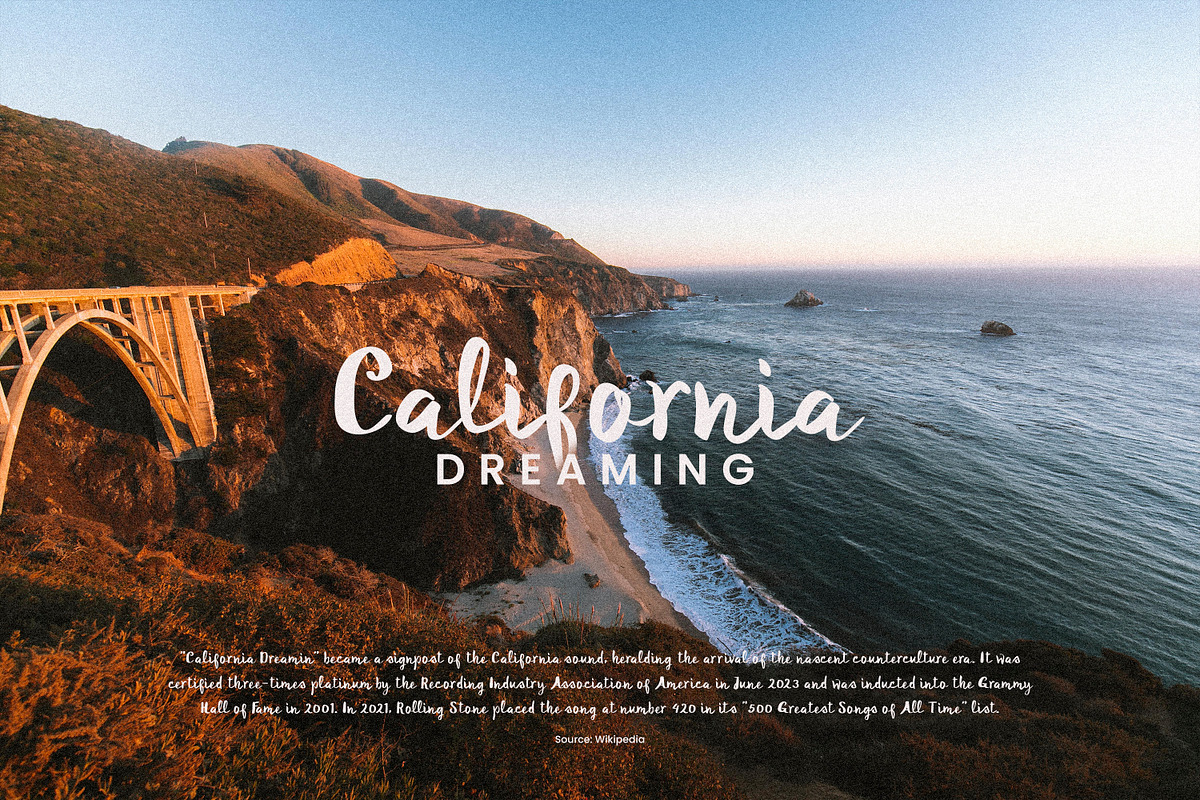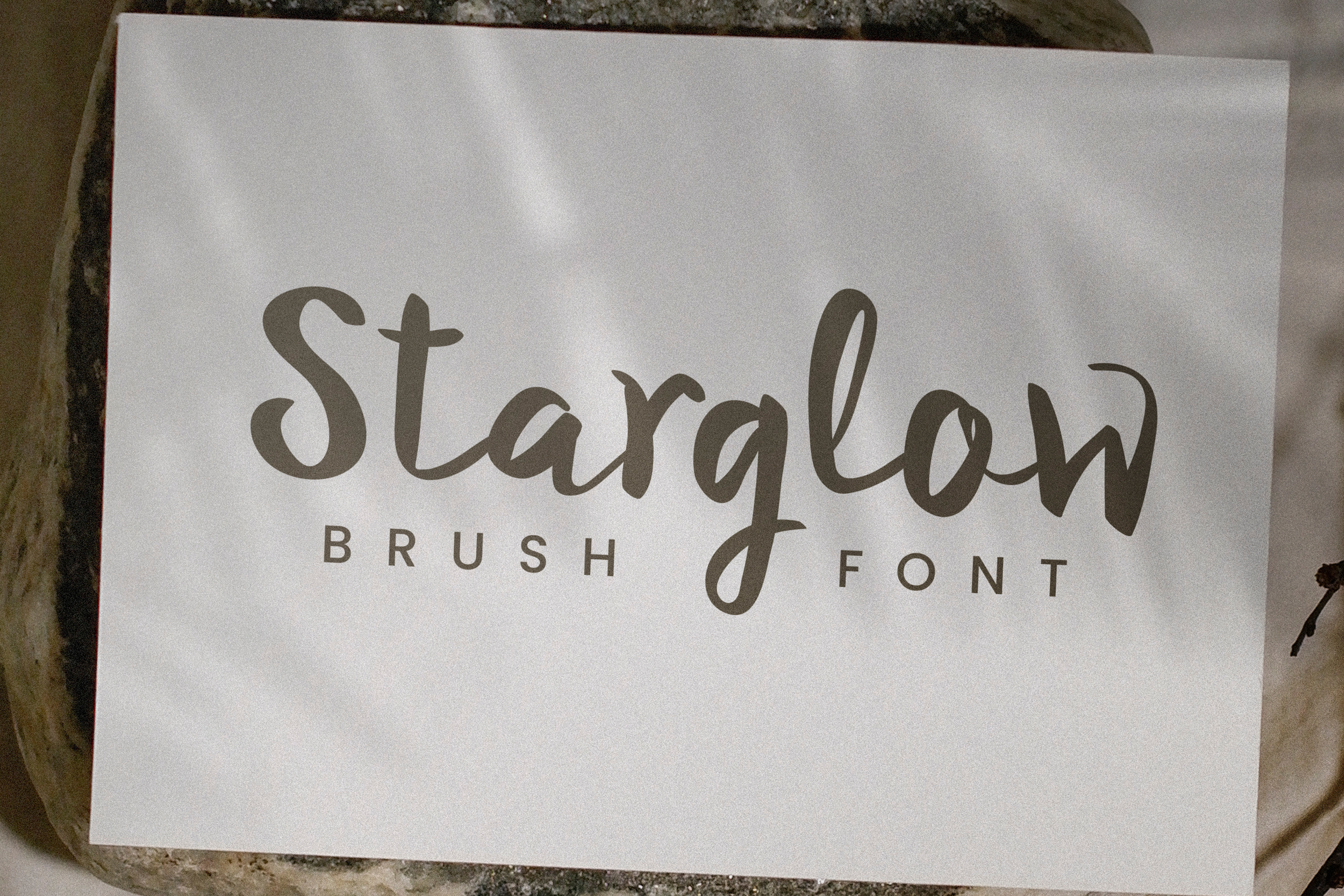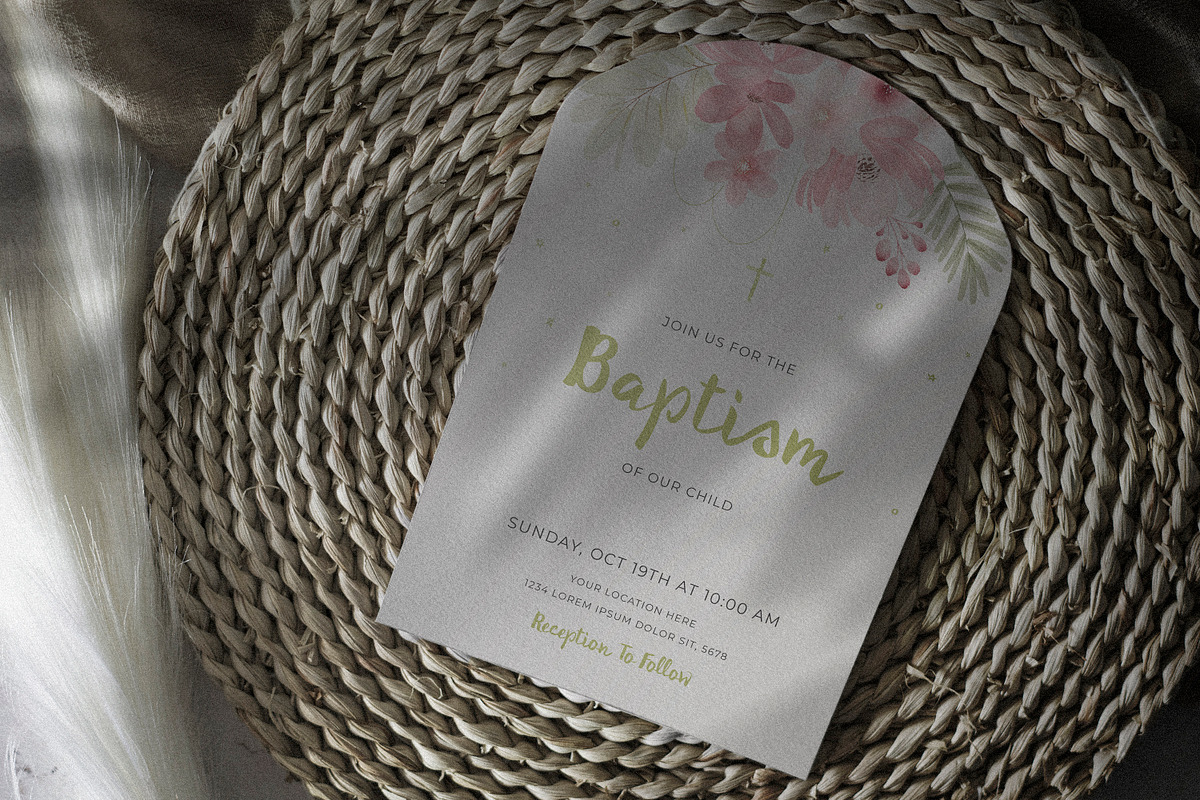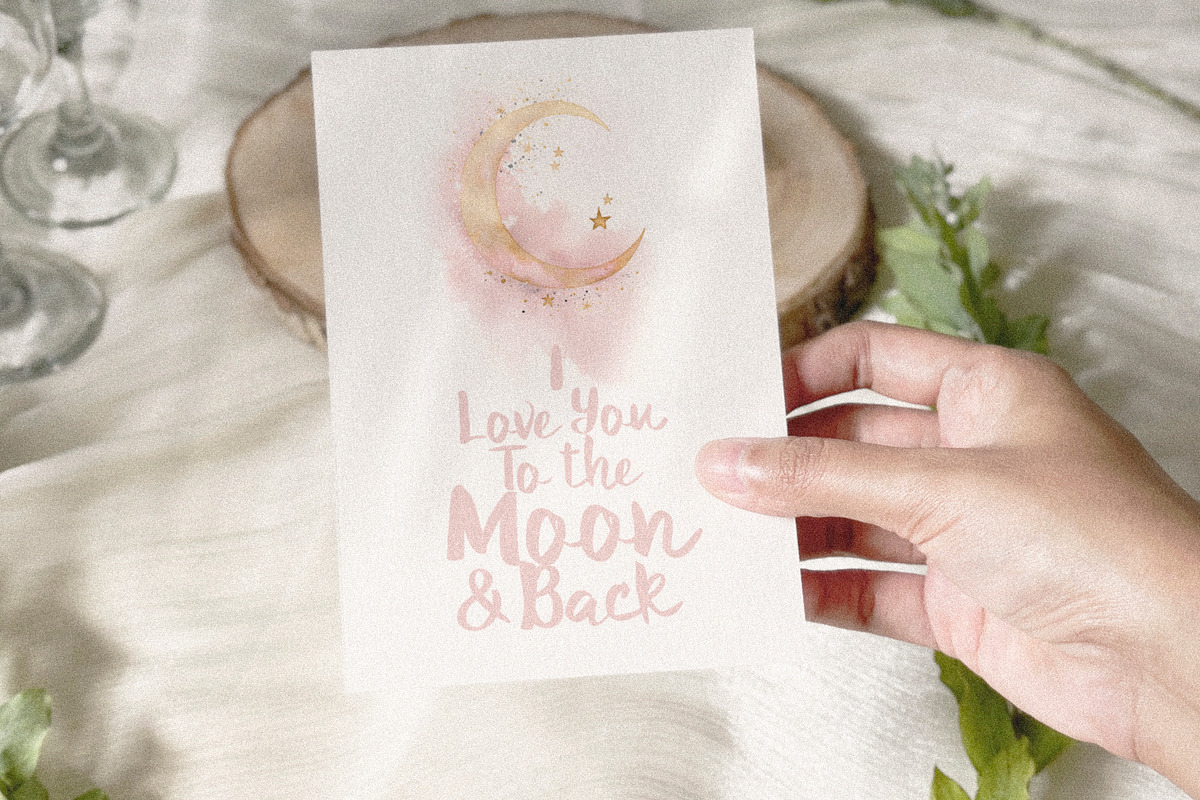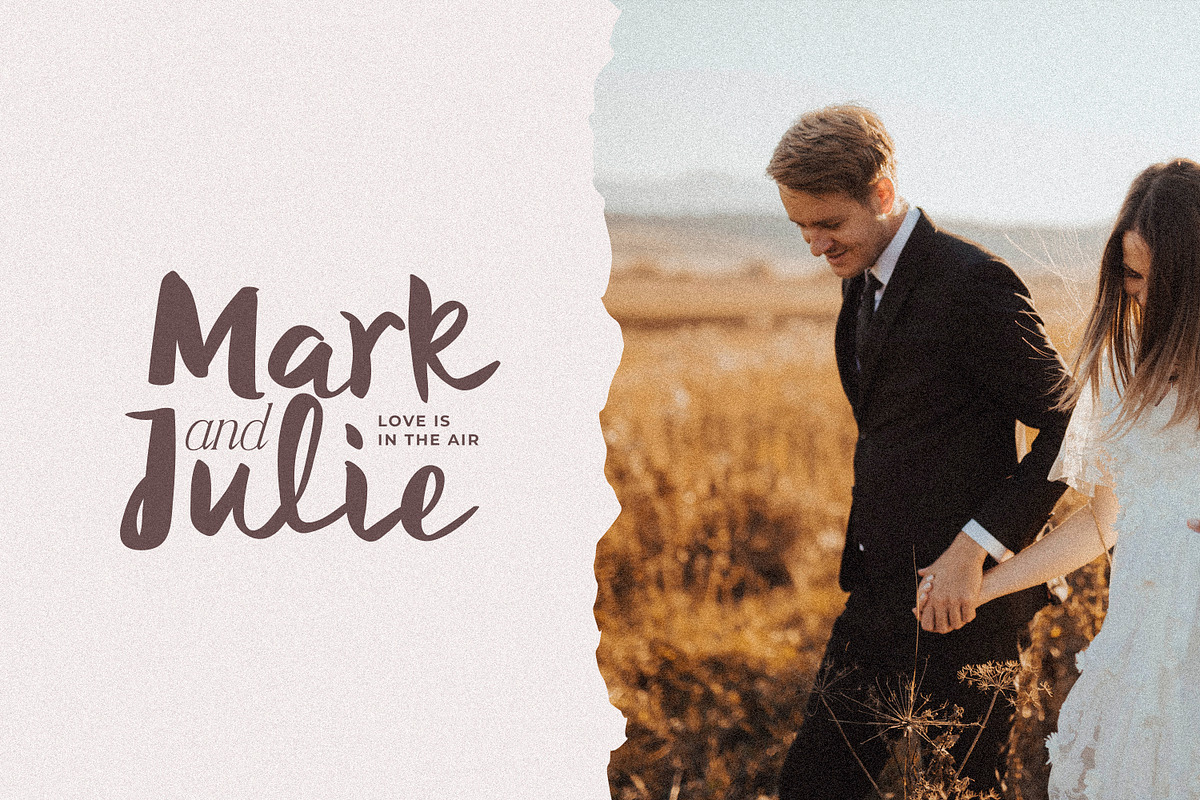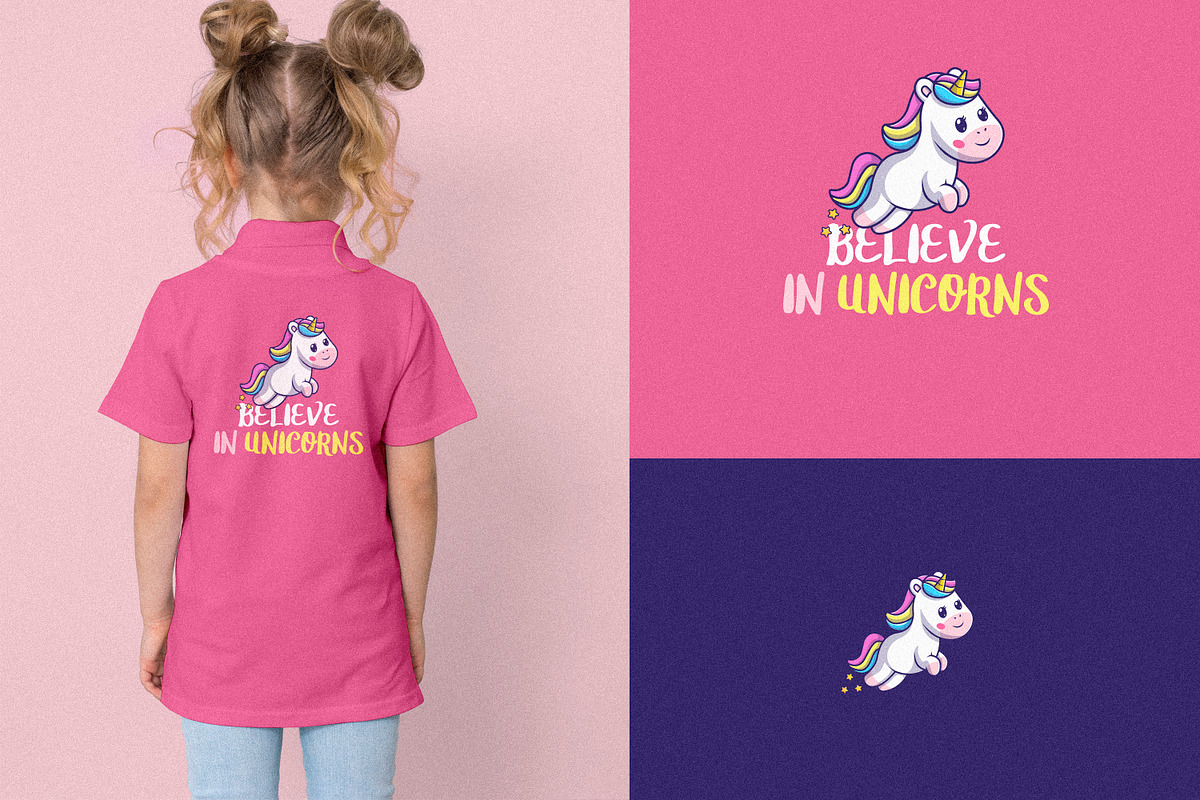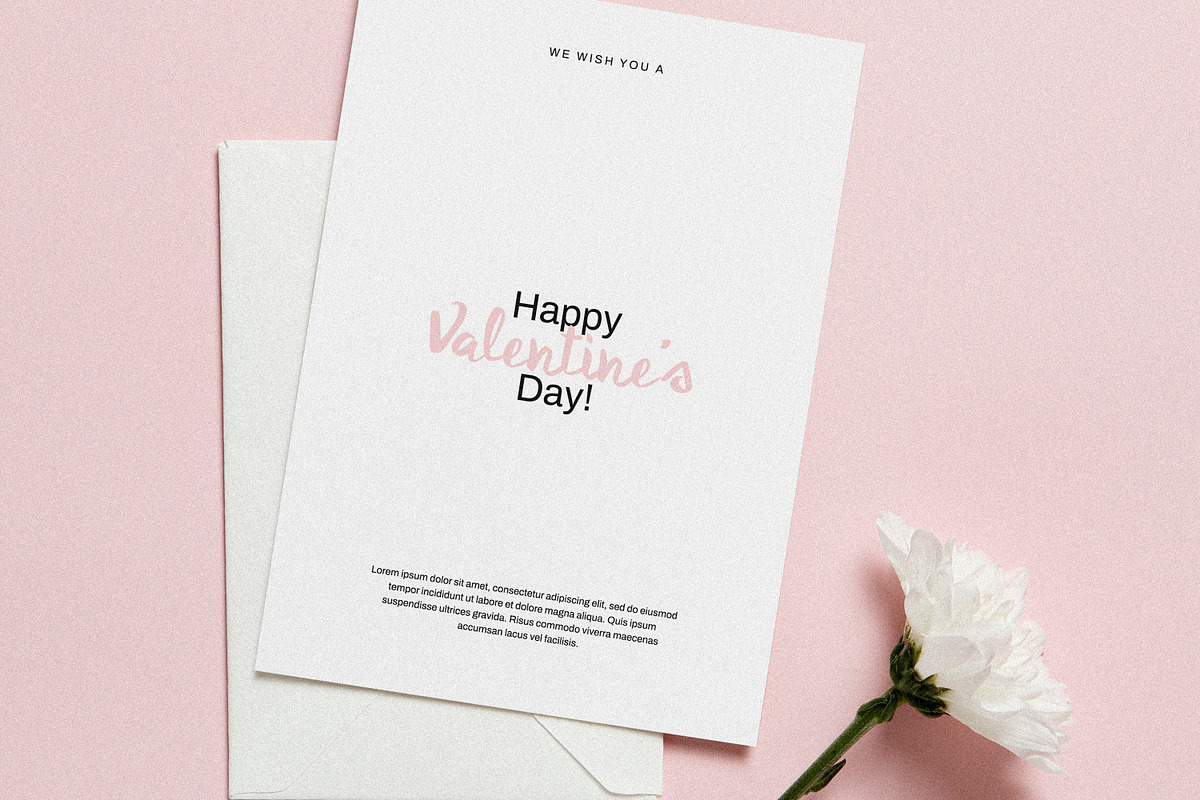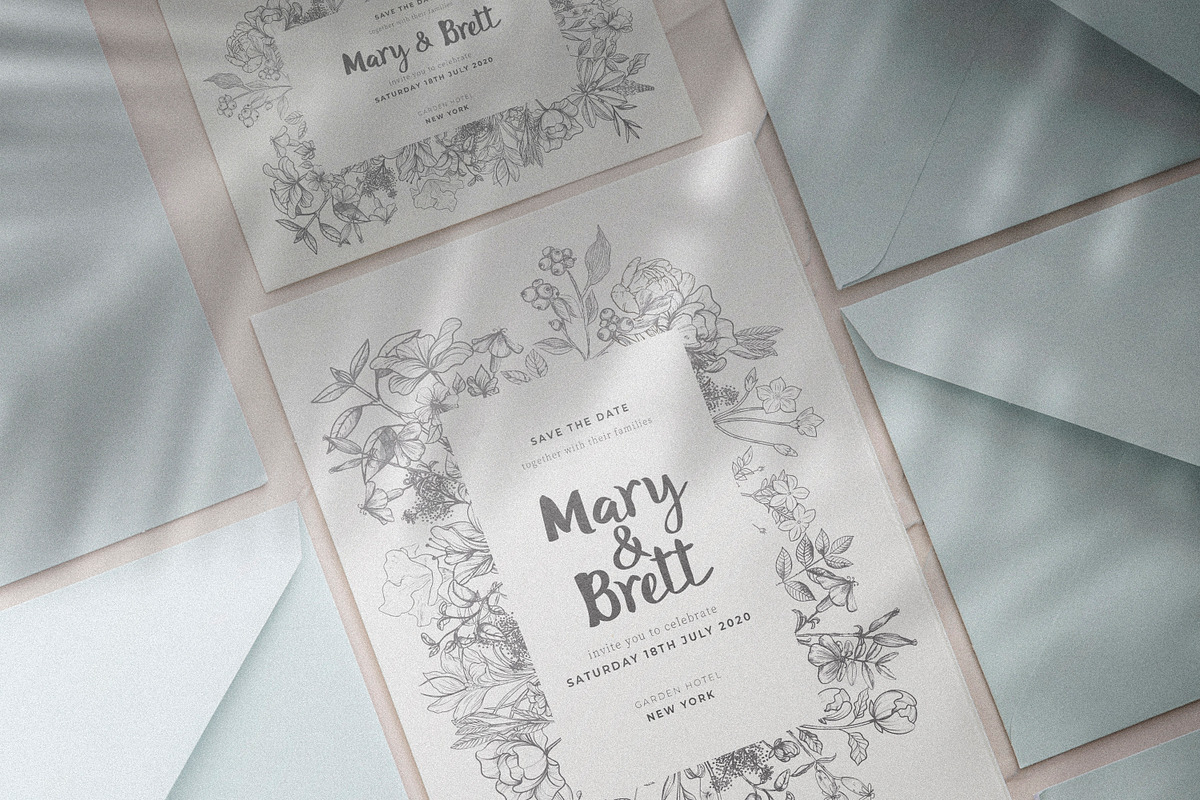
Starglow - Bold Handwritten Font
Introducing Starglow - A Bold and Playful Script font with a handmade brush look.
Starglow shines in applications that demand a touch of fantasy and romance. From the fairytale elegance of wedding stationery to the joyful allure of children's book covers and birthday invitations, this font adds a heartwarming and imaginative flair.
This font is designed for logos, headlines, quotes, invitations, cards and so much more. It has a slight rustic and authentic handmade vibe to its look.